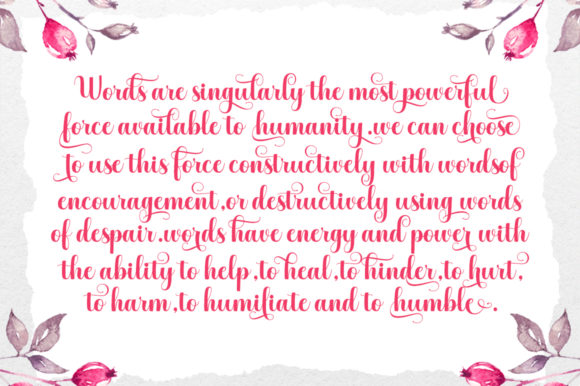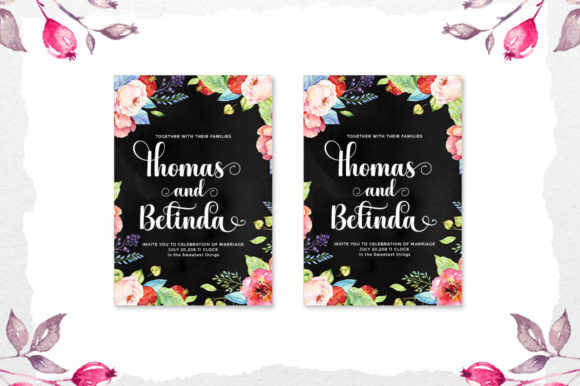
Hello Georgina Font
db-ku.com - Script & Handwritten -- Hello Georgina is a lovely and jolly duo font (script and sans serif). It looks stunning on wedding invitations, thank you cards, quotes, greeting cards, logos, business cards and every other design which needs a handwritten touch. It features a varying baseline, smooth lines, gorgeous glyphs and stunning alternates.